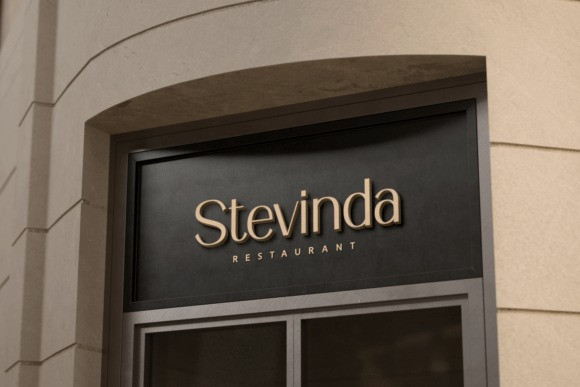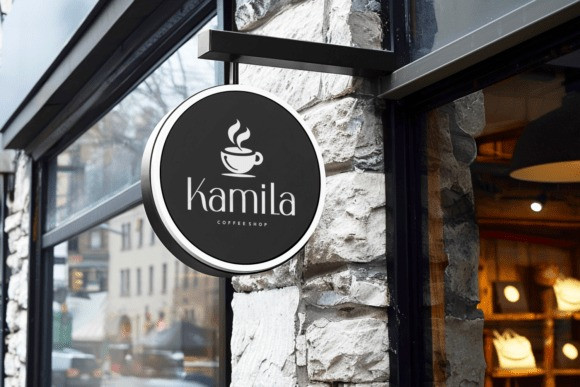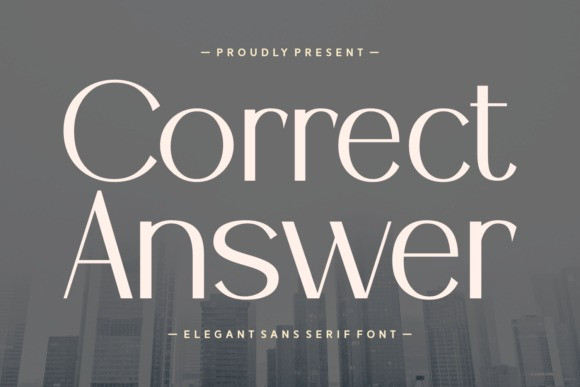
Correct Answer Font
Correct Answer Font, an elegant sans serif font. The font itself is a high-contrast sans serif, giving it a sophisticated and clear appearance ideal for corporate branding, headlines, and business communications.